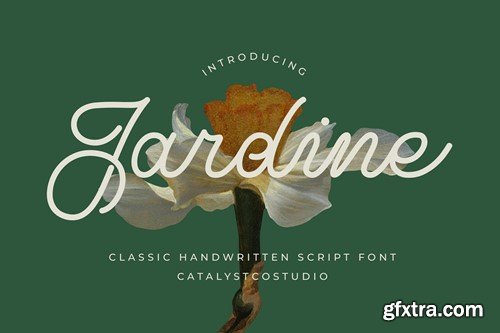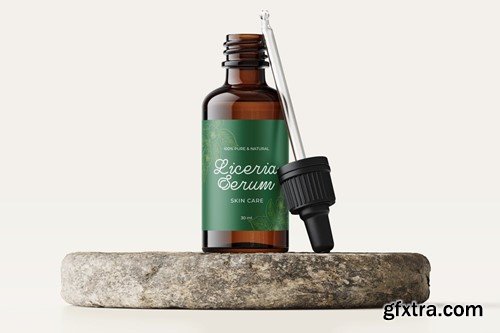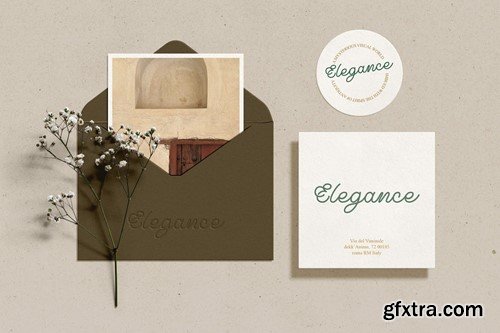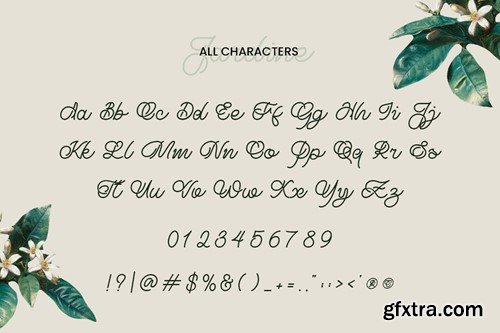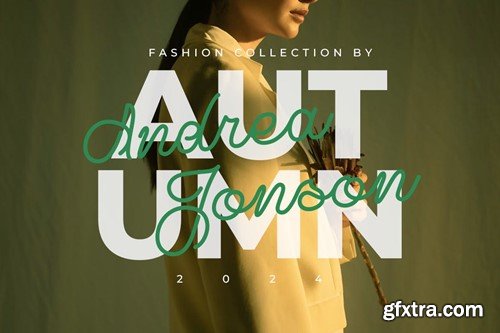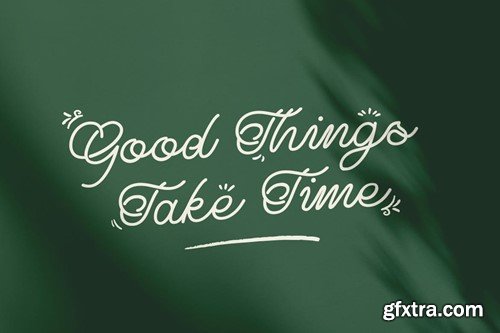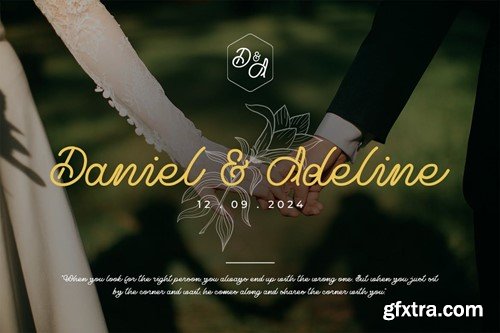
贾德尼经典手写体 script 字体 5VWF63L
Jardine Classic Handwritten Script Font 5VWF63L
Jardine Classic Handwritten Script Font
Jardine Classic Handwritten Script Font typeface excellent used for the manufacture quote text, logotype, header magazine, and many more.
• Ligatures & Alternate
• Numeral & Punctuations